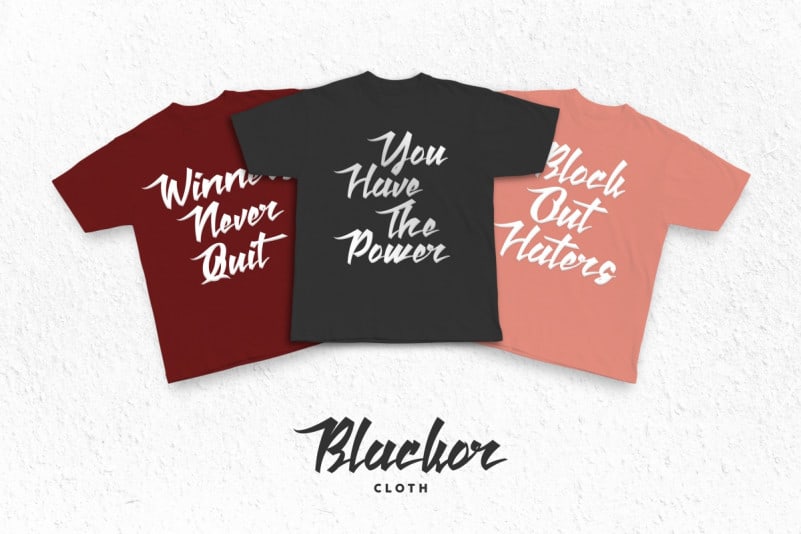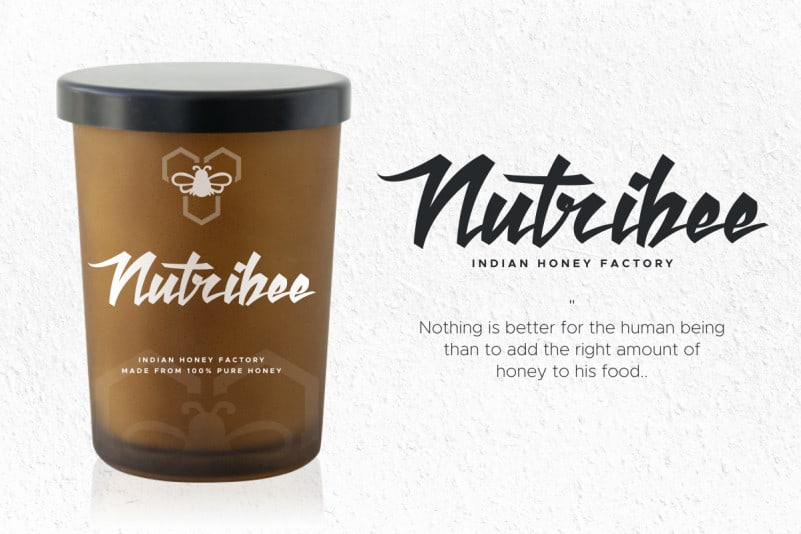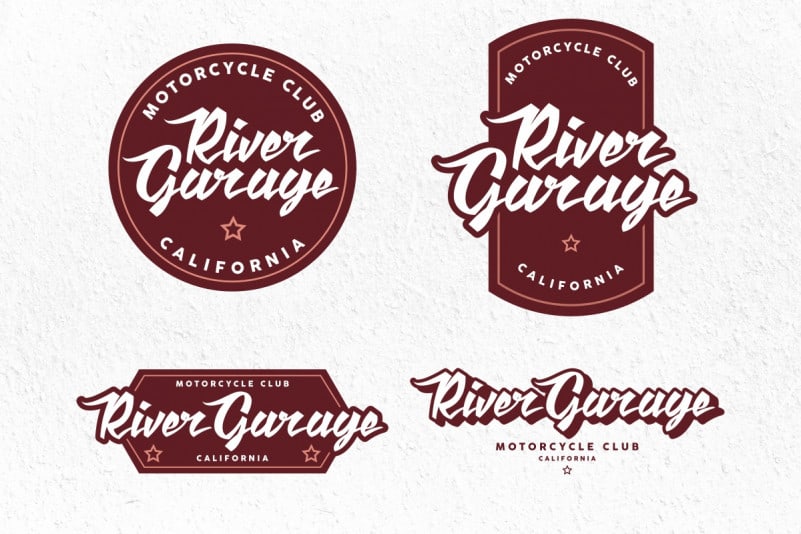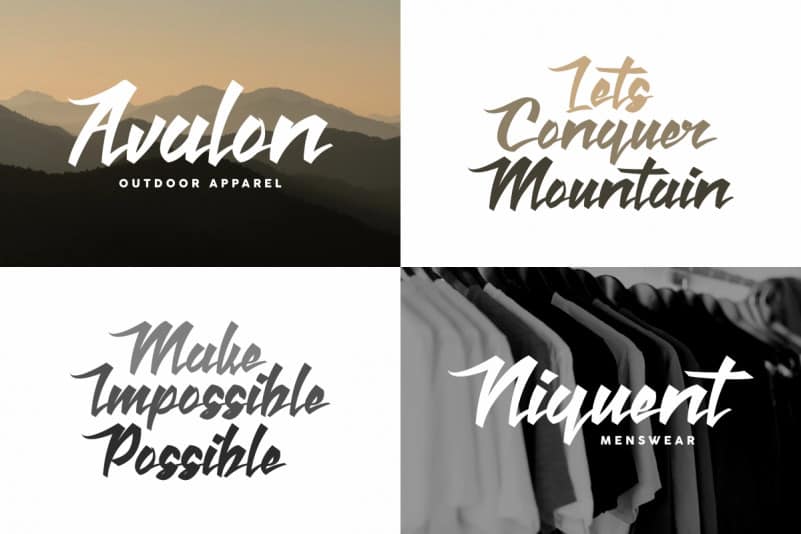
Reverse Lettering Font
Reverse Lettering Font is a brush Calligraphic font by RaisProject. Awesome for any your special projects including : weddings, promotion, events, branding, etc